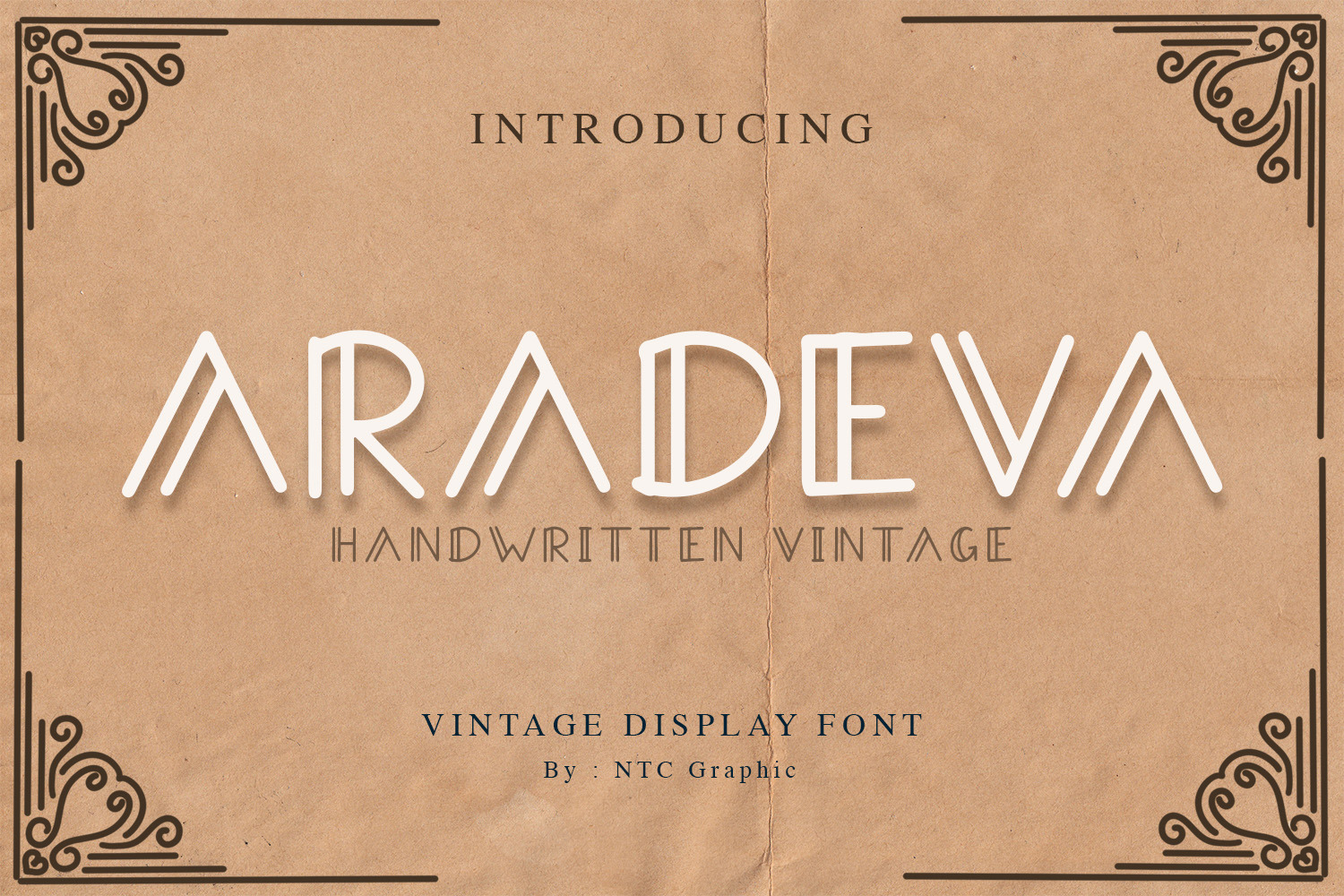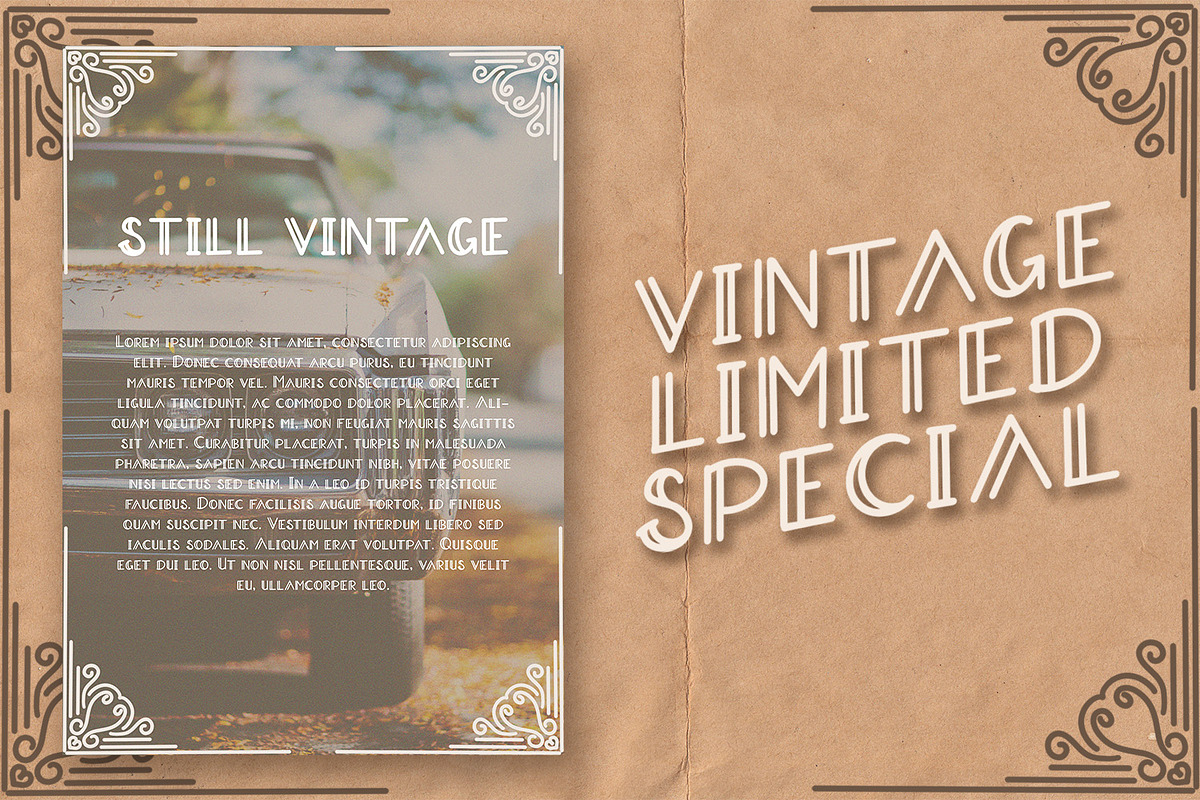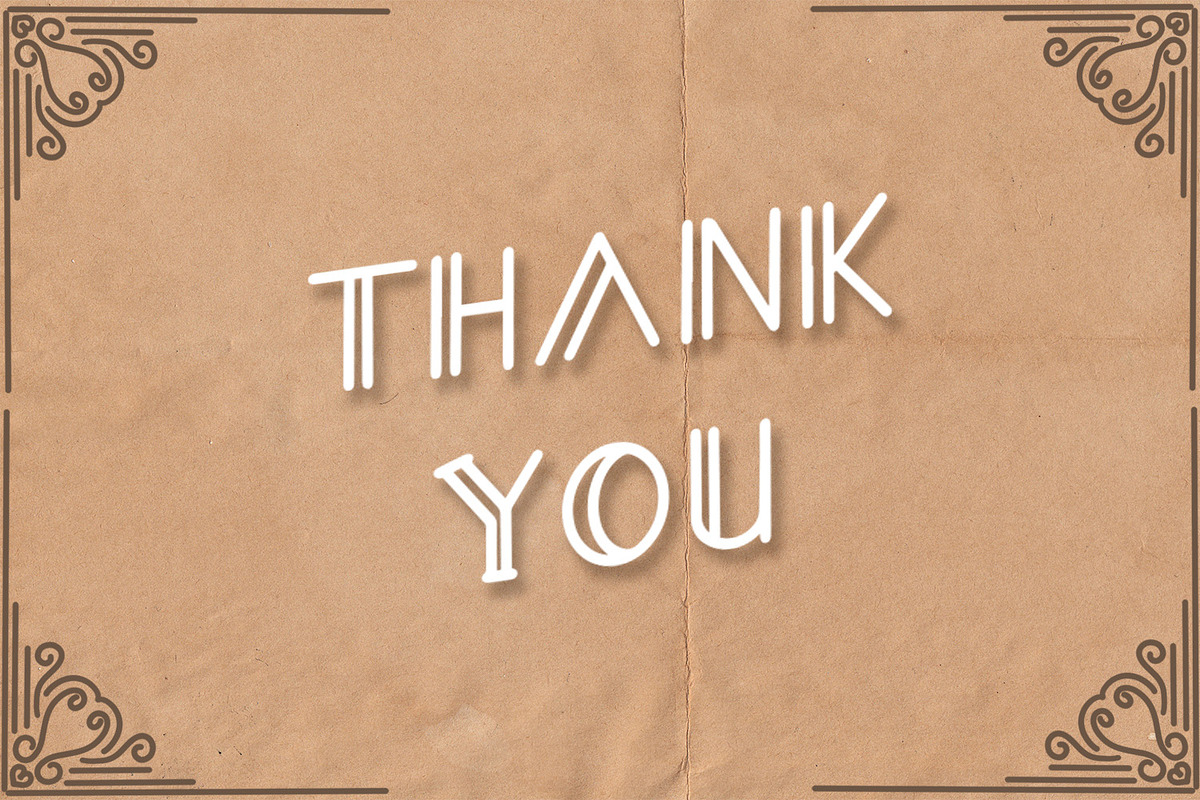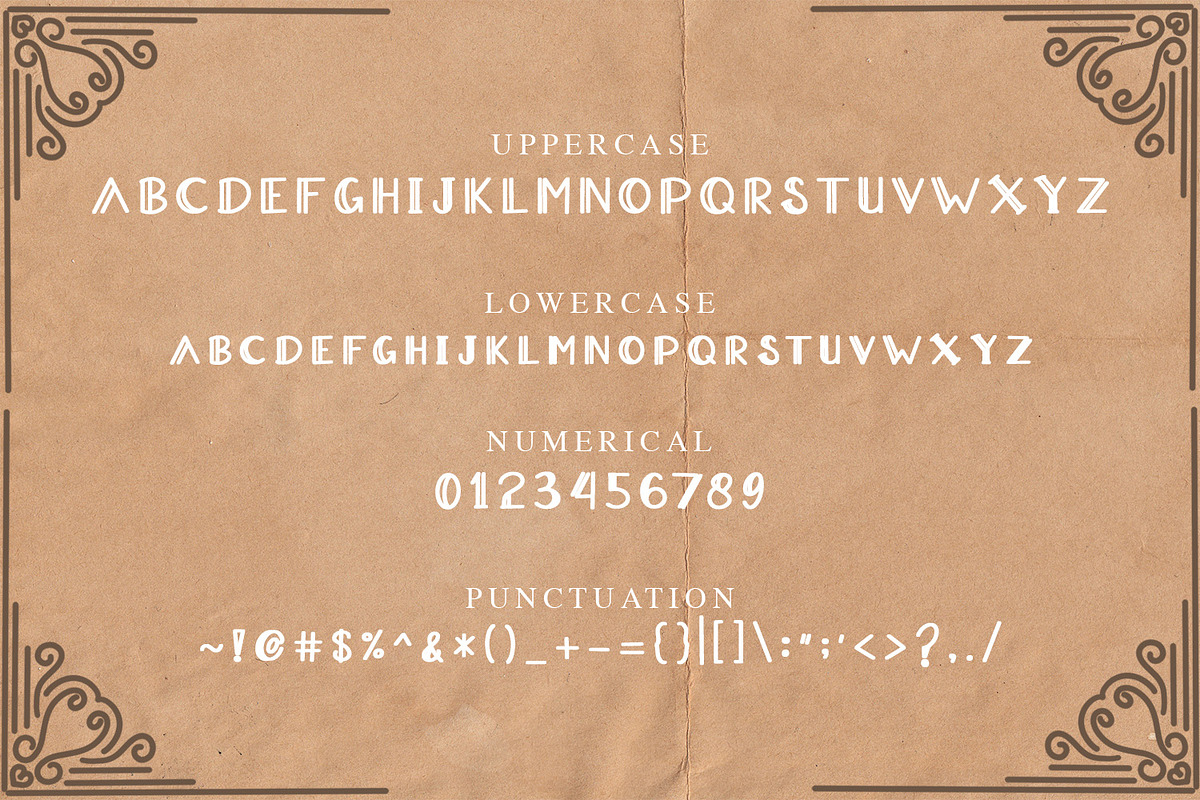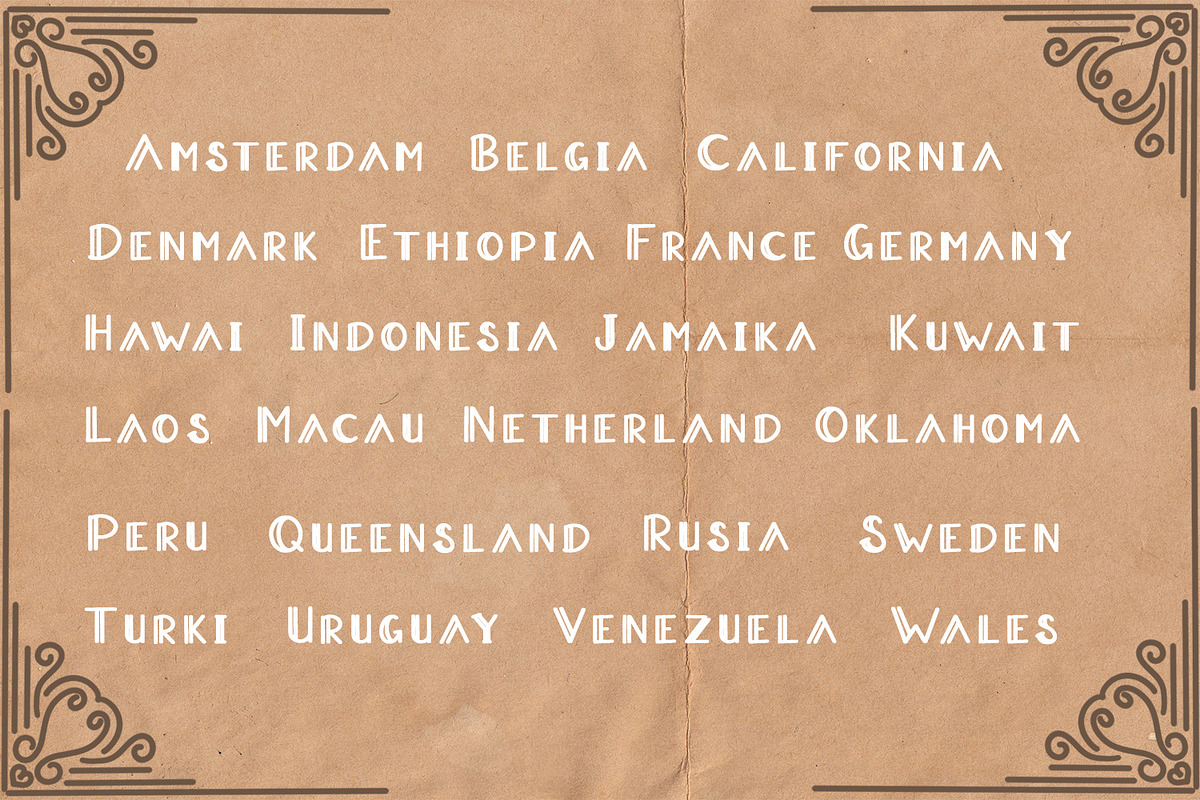
ARADEVA - Vintage Font
Aradeva is a Handwritten Vintage Display type font that is very suitable for the publication needs of t-shirt design, flyers, and anything needs. This font has a beautiful vintage character but has a firm side in it. Made with hand scratches directly and then processed into font processing software.
Aradeva font with uppercase characters A-Z, lowercase characters a-z, and punctuation